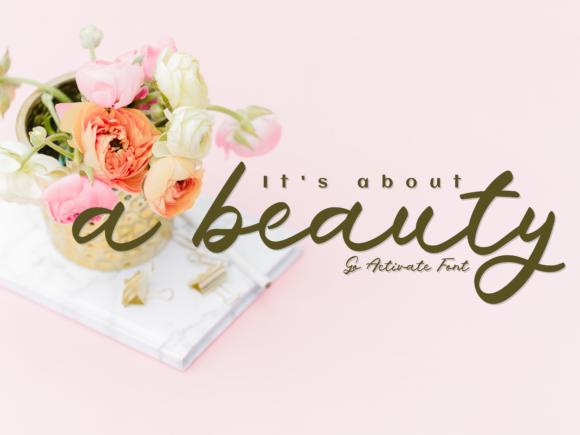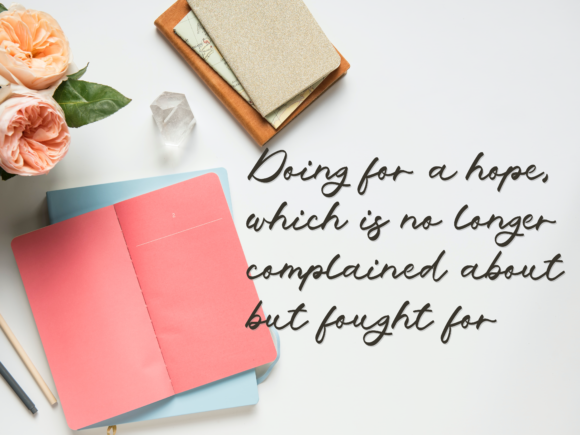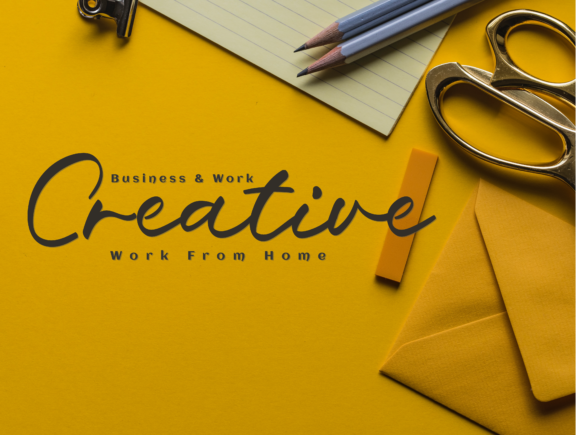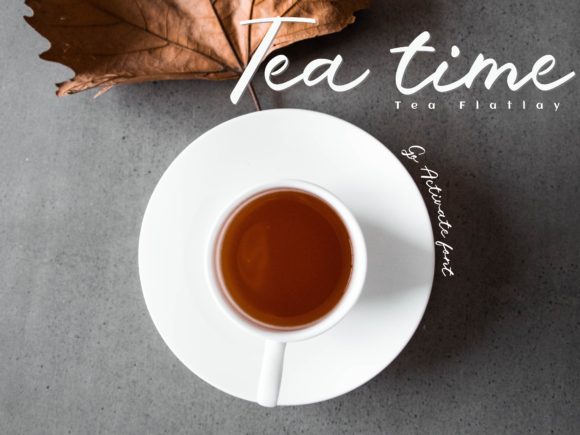
Go Activate Font
About Go Activate Font
Go Activate is a stylish and meticulously crafted handwritten font that seamlessly blends sophistication with a touch of personal flair. Tailored for versatility, this font is an ideal choice for a myriad of projects, including logos, branding initiatives, labels, photography, special events, and more. Incorporate Go Activate into your designs with confidence, and you’re sure to witness outstanding results that elevate the visual appeal of your projects.
The stylish nature of Go Activate sets it apart, making it a versatile and adaptable font suitable for a wide range of applications. Whether you’re developing a brand identity, crafting a label, or working on a special event promotion, Go Activate lends a contemporary and chic quality to your text, ensuring that your projects exude a modern and trendy vibe.
Handwritten with precision, Go Activate strikes the perfect balance between elegance and personal touch. The font’s unique charm adds a layer of authenticity to your designs, making it a standout choice for those seeking a font that resonates with individuality and style. By incorporating Go Activate, you infuse your projects with a distinct personality that captures attention and leaves a lasting impression.
Consider Go Activate your go-to font for a multitude of creative endeavors. Whether you’re designing a sleek logo that demands a contemporary edge or working on branding projects that require a handwritten touch, this font seamlessly adapts to your vision, ensuring cohesive and visually pleasing results.
In conclusion, Go Activate is more than just a font; it’s a design companion that enhances the overall aesthetic of your projects. Its stylish and handwritten qualities make it a valuable asset for diverse applications, and its adaptability ensures that it can confidently take its place in your logos, branding projects, labels, photography, special events, and beyond. Embrace Go Activate, and witness how it transforms your designs into visually stunning and memorable creations.